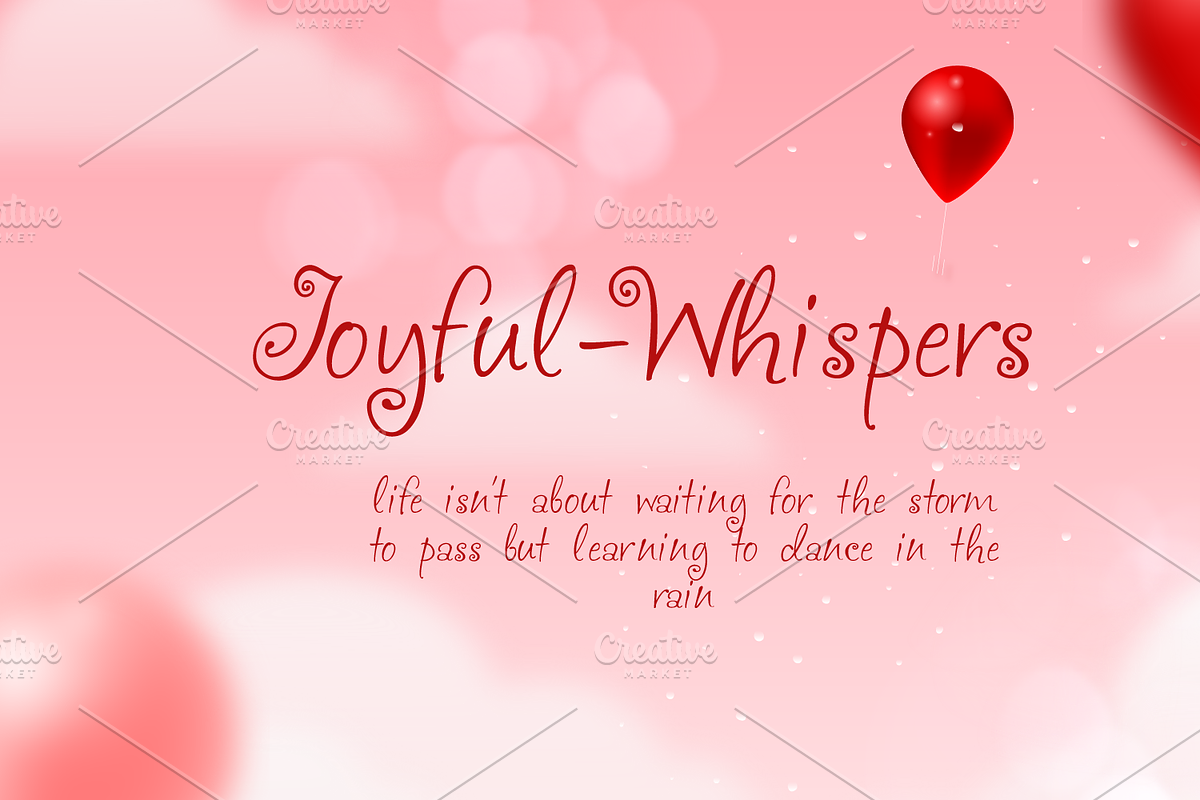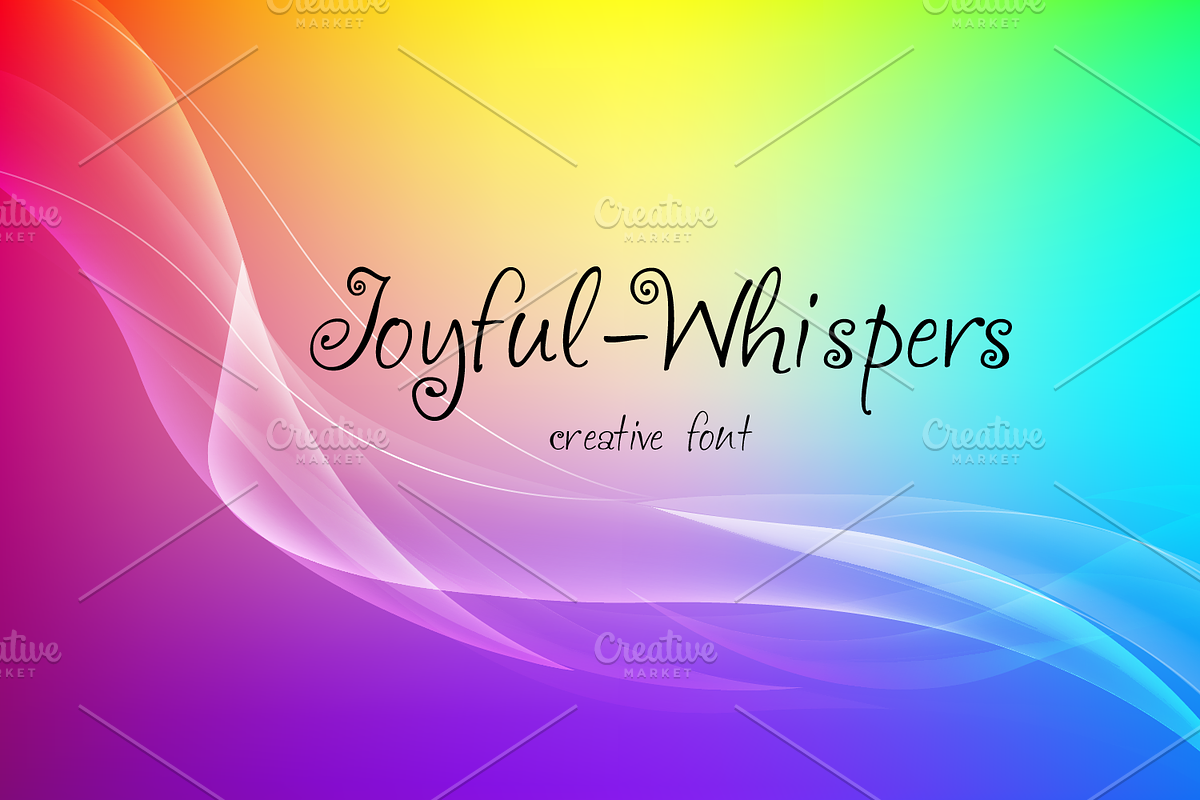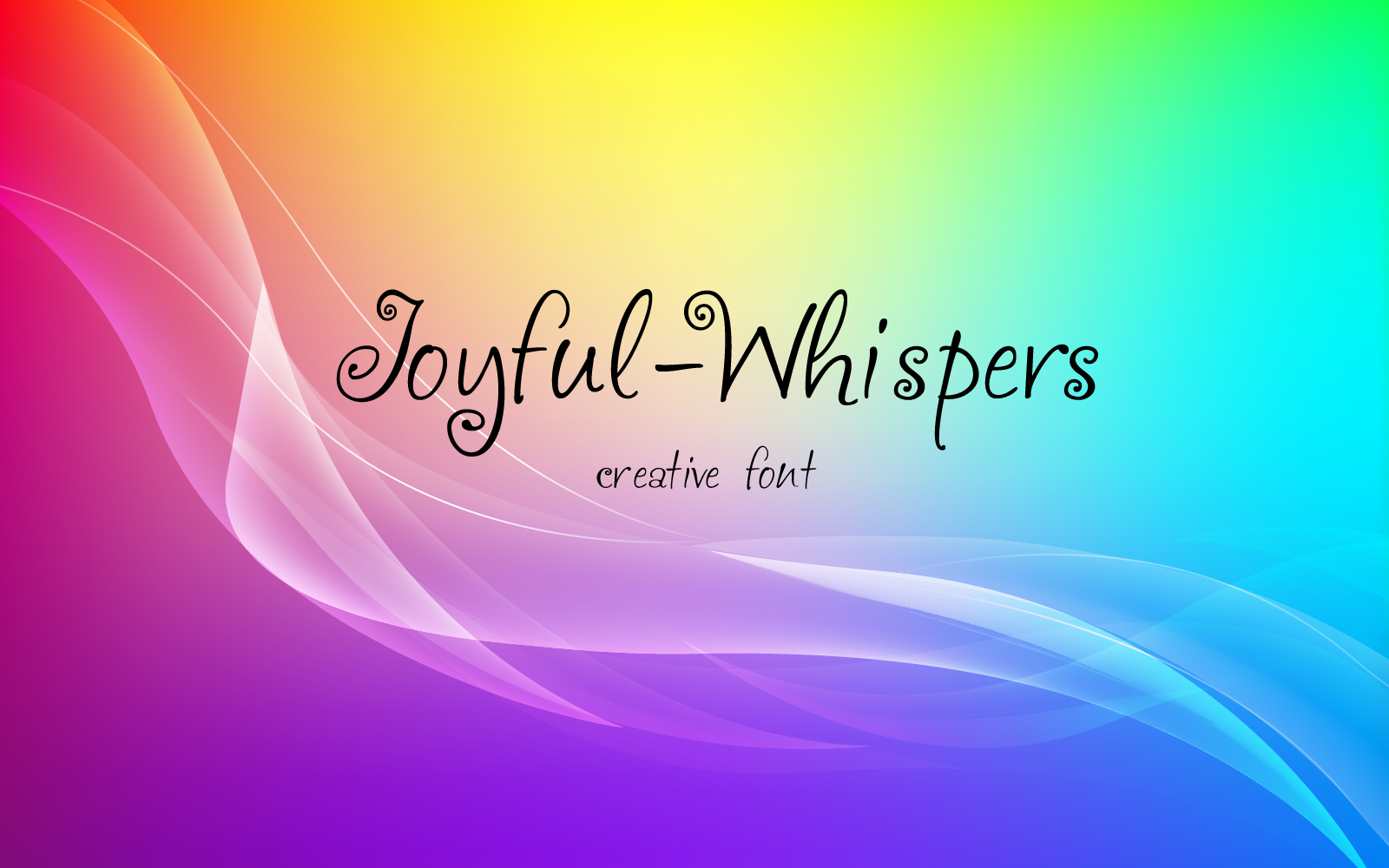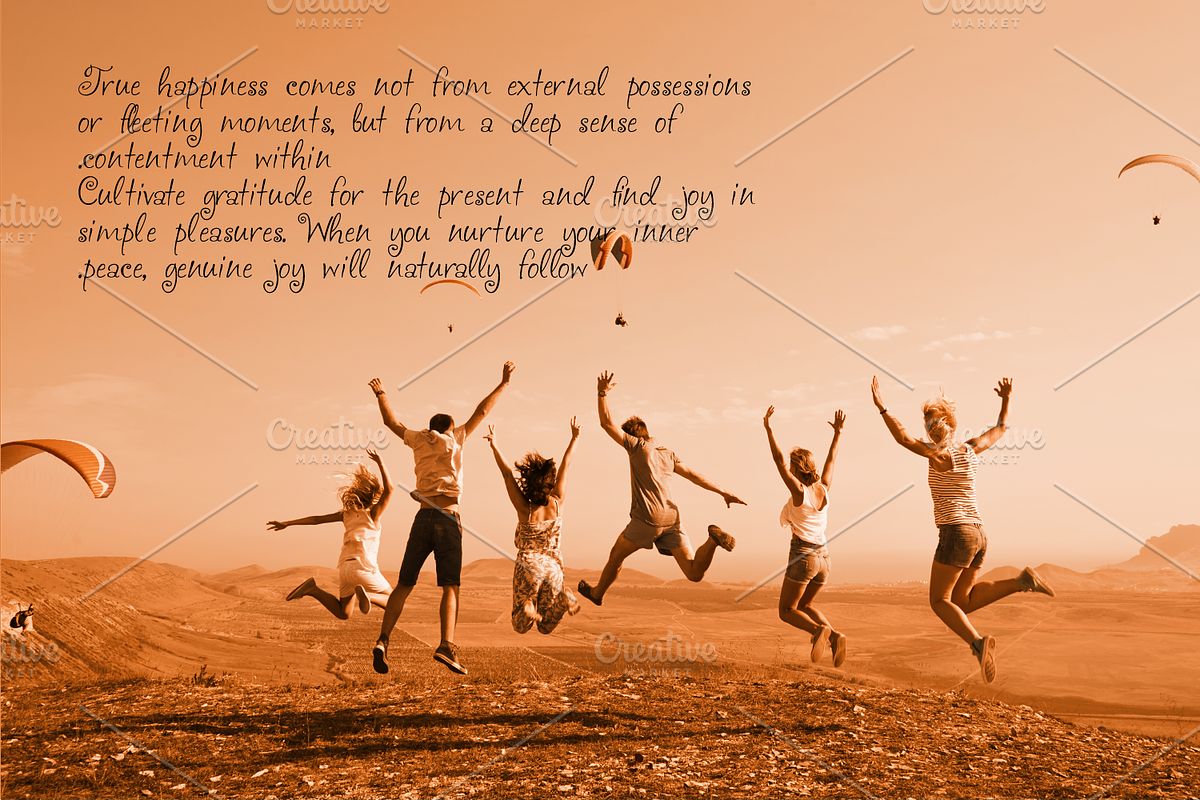
Joyful Whispers font-03-24
Elevate your brand's visual impact with Joyful Whispers font, the ultimate choice for dynamic and captivating ad designs.
This distinctive font merges daring strokes with a powerful presence, ensuring your message stands out with confidence and flair.
Make every campaign unforgettable with the strength and adventure of Joyful Whispers font.